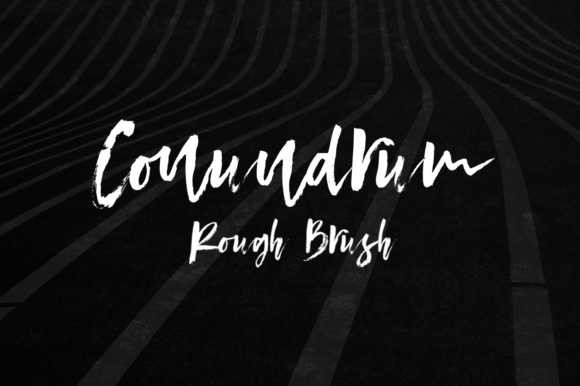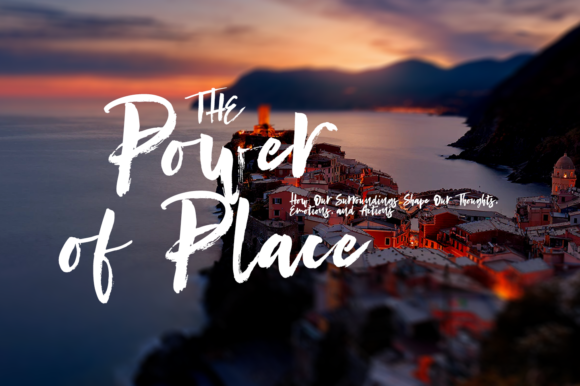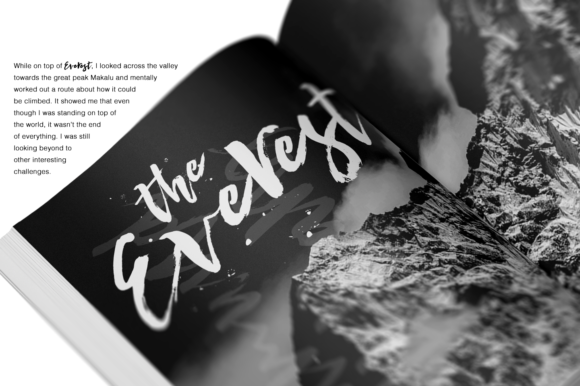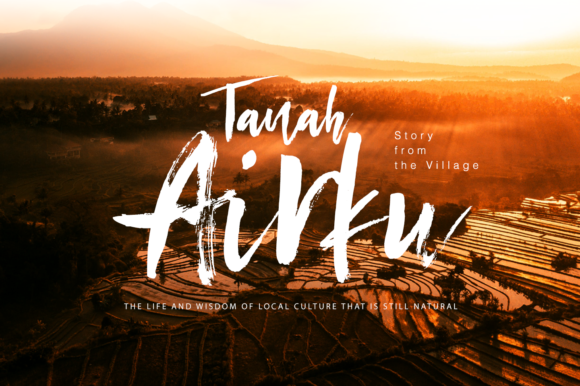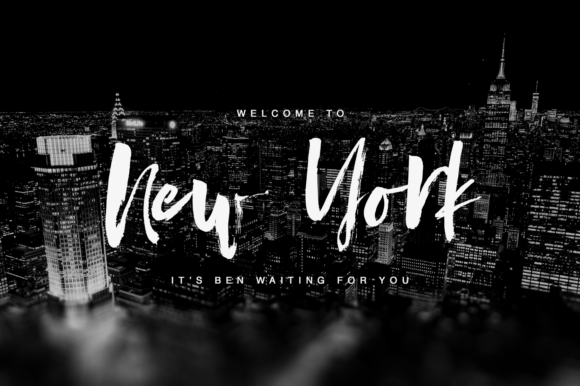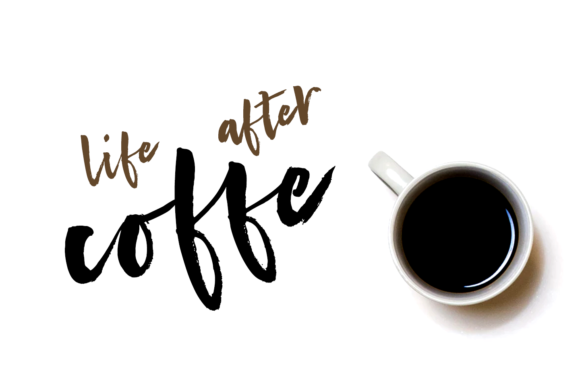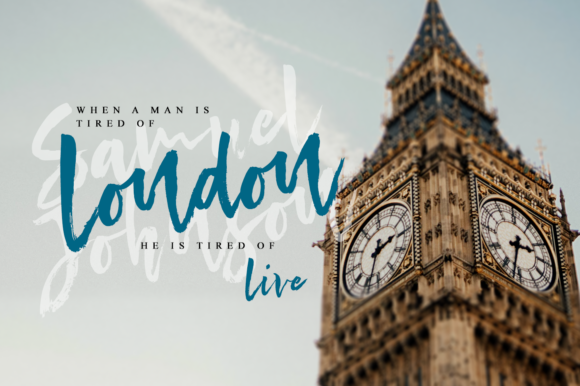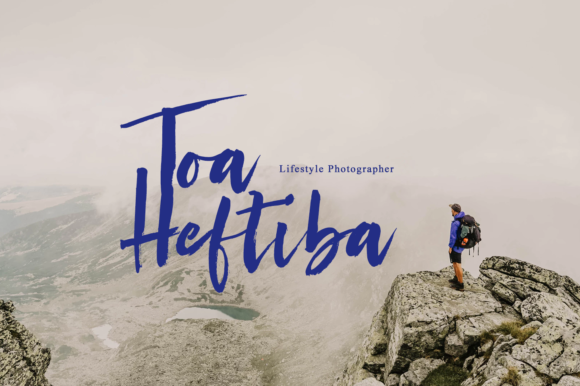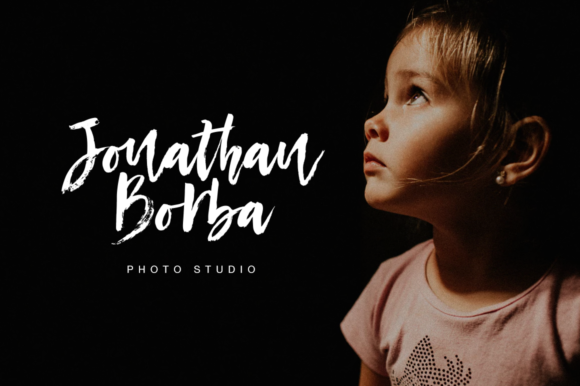
HomeScript FontsConundrum Font Script Fonts Conundrum Font FacebookXPinterestWhatsApp Conundrum Font Poster 2 Conundrum Font Poster 3 Conundrum Font Poster 4 Conundrum Font Poster 5 Conundrum Font Poster 6 Conundrum Font Poster 7 Conundrum Font Poster 8 Conundrum Font Poster 9 About Conundrum Font Conundrum is a cool and rough brush font. Quickly painted on paper, it looks natural and incredibly organic. DOWNLOAD ON CREATIVE FABRICAThis font is sold and delivered by Creative Fabrica. Font Canyon may earn a commission if you buy through this link. People also explored Urban Drama Font Farm House Font Mensionery Bold Font Snowlatte Font Besok Lusa Font Homela Font Hardtrack Font Pumpkin Spice Font Princess Alamanda Font 281 0 TagsConundrum Font Previous articleLittle Pea FontNext articleAppetizing Biscuits Font LEAVE A REPLY Cancel reply Comment: Please enter your comment! Name:* Please enter your name here Email:* You have entered an incorrect email address! Please enter your email address here Website: Save my name, email, and website in this browser for the next time I comment. Personal Use Free Coconote Personal Use Free Read more about this font Darla Personal Use Free Read more about this font Heart Memory Personal Use Free Read more about this font Milda Personal Use Free Read more about this font BLOG Where to Buy American Fonts Online in 2024 Where to Buy American Fonts Online: The Ultimate Guide for 2024 Looking for the perfect American font to elevate your design projects? You're in the... Elegant Wedding Invitation Fonts – Handwritten & Script Fonts Best Fonts for T-Shirt Design – Top 2025 Picks Free Fonts Risk: Why Free Fonts Can Be Dangerous for Designers